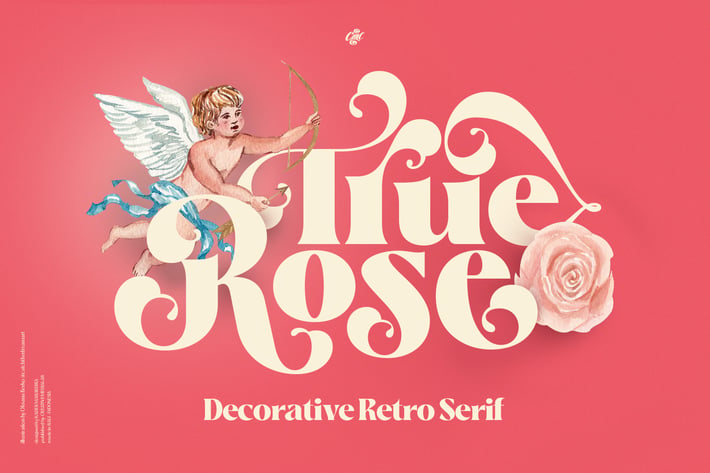
True Rose - Decorative Retro Font
True Rose is a decorative serif family. Bold and Vintage retro style combined with simple Victorian ornaments makes the lettering look neat and clean, perfect for your heading, title, or branding projects.